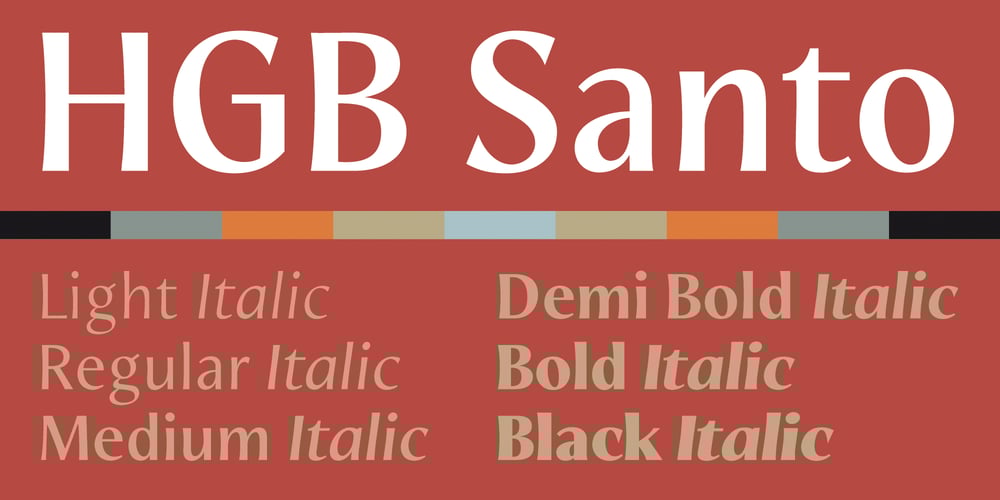
HGB Santo Font Family was designed by Hellmut G. Bomm and published by HGB fonts. HGB Santo contains 12 styles and family package options. Must a letter always have a symmetrical basic form? What happens when the shape of the letters stretch like an arc in the reading direction? When writing with a broad nib, this is easily achieved. The HGB Santo examines the effect of this formal principle on the readability of a text. First attempts have shown a warm and reader-friendly typeface. Six shades from Light to Black, each with an italic should be sufficient for most applications. Small caps and old-style figures are available via OpenType features as well as some ornamental forms in the italics.